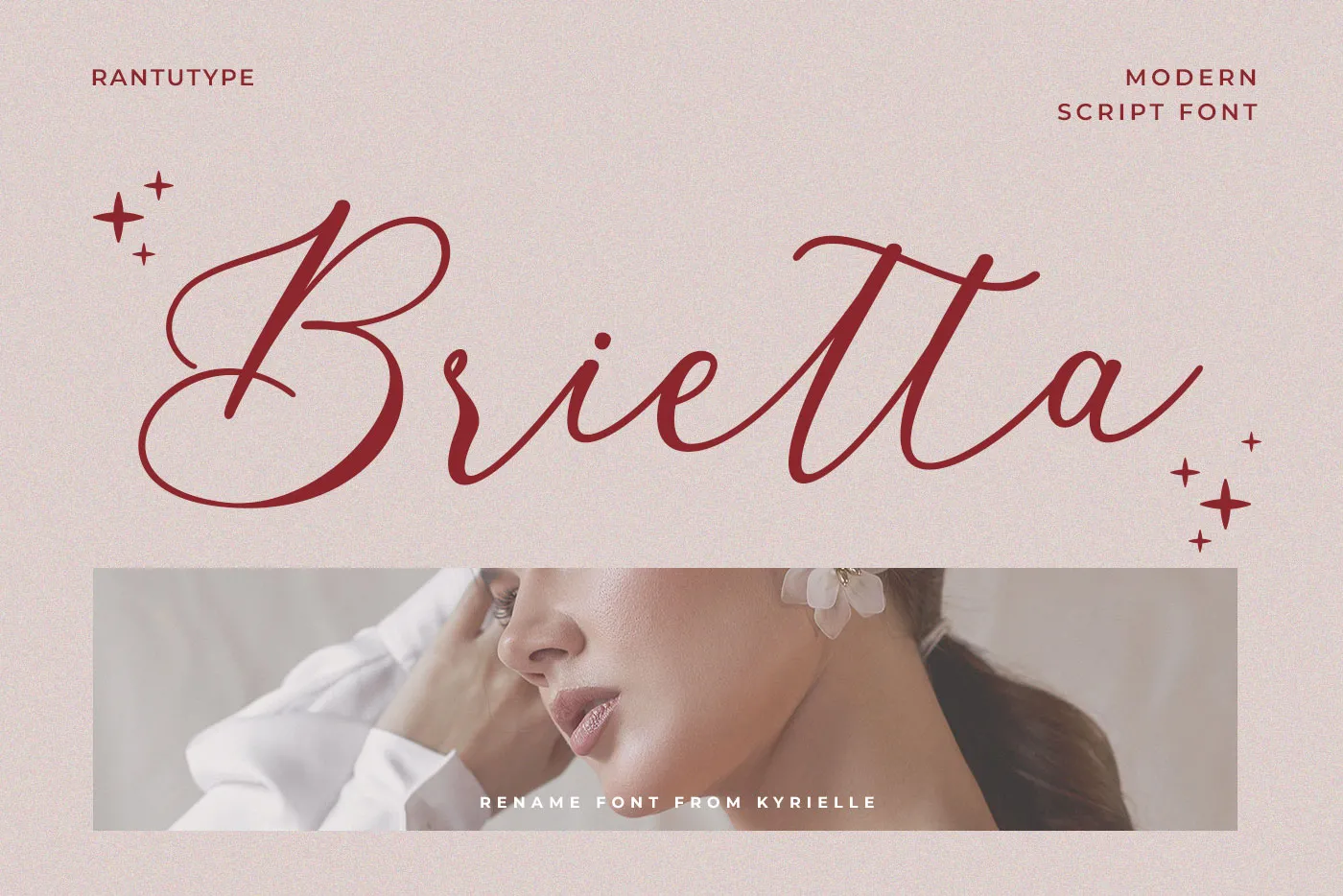
Think La Bohemienne has become a bit overused over the decades? Then, it’s the turn of a font similar to La Bohemienne to stand out. With sophisticated yet unpredictable characters, these fonts will perfectly complement your fancy project, like the La Bohemienne font does.
To make your search easier, we’ve got 32 alternatives to La Bohemienne without straying too far from the tried-and-true.
Key Takeaways:
- The alternative for the La Bohemienne font should represent the quirky and elegant calligraphic vibes.
- La Bohemienne font should mimic artistic penmanship.
- The font similar to La Bohemienne is best for high-end projects, including invitations, logos, and branding.
About La Bohemienne
Generally, La Bohemienne is an outstanding modern script font with calligraphic flourishes. The letters are interconnected with lovely lines, elegant swashes, and graceful curves to celebrate a sophisticated and artistic appearance.
It also has a consistent stroke width to facilitate readability while maintaining its visual appeal to fit a project. Thus, La Bohemienne is ideal for wedding invitations, brand logos, and creative projects.
32 Font Similar to La Bohemienne
Here’s the alternative to La Bohemienne you should know.
1. Millantey
Millantey is jam-packed with gorgeous swirls and lofty ascenders, making it ideal for feminine artwork.
2. Bristeny
Create a chic design by leveraging the Bristeny font to embody the classy vibe with loopy curves and delicate lines.
3. Eastrya
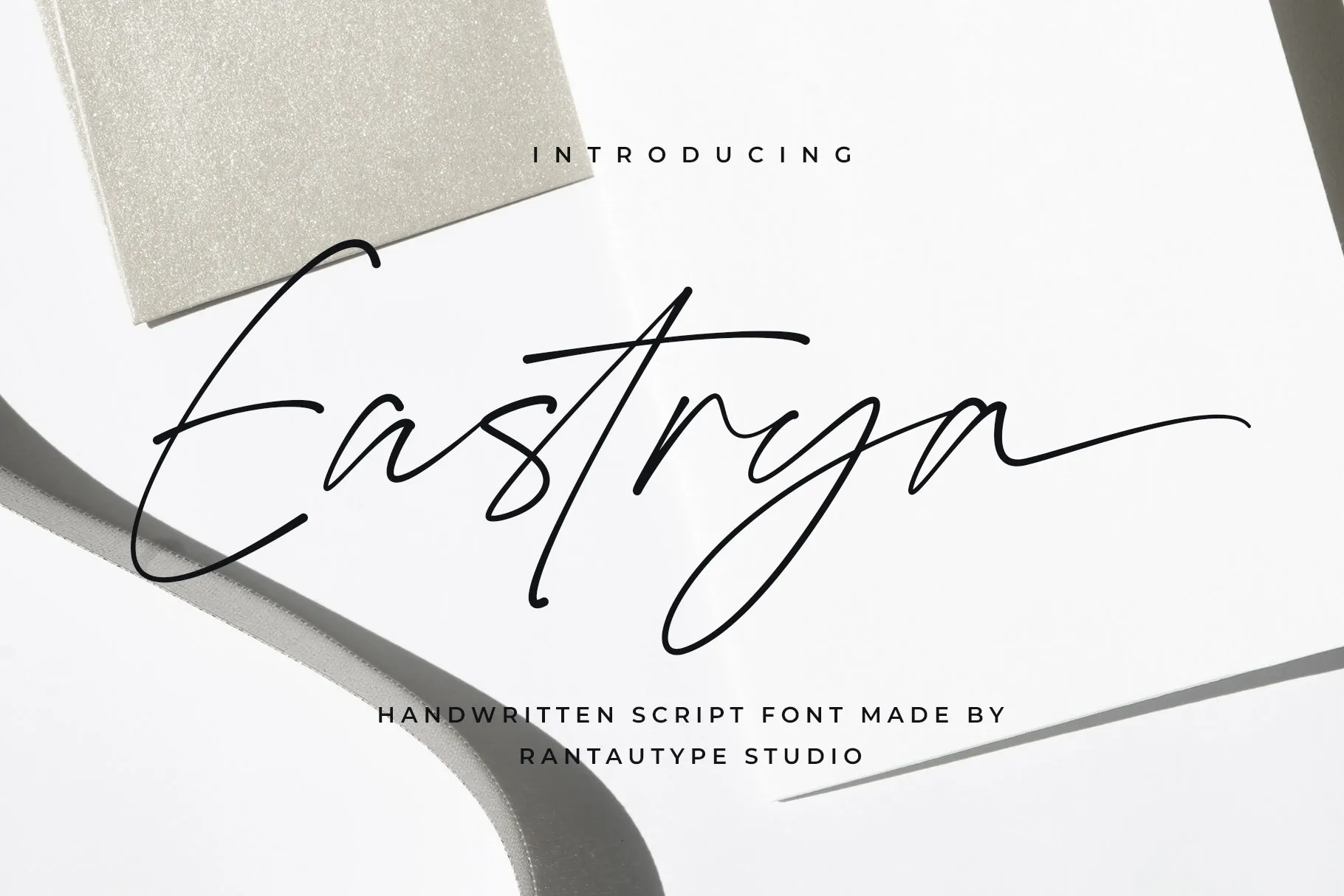
Flowy yet sophisticated, Eastrya features the perfect baseline to best fit your hand-drawn project.
4. Herattey
Herattey is a sleek typeface with thin to bouncy lines that are suitable for any title or wedding design.
5. San Brainy
A casual cursive font, San Brainy, boosts the contemporary touch with versatile usage in both print and digital projects.
6. Hastheya
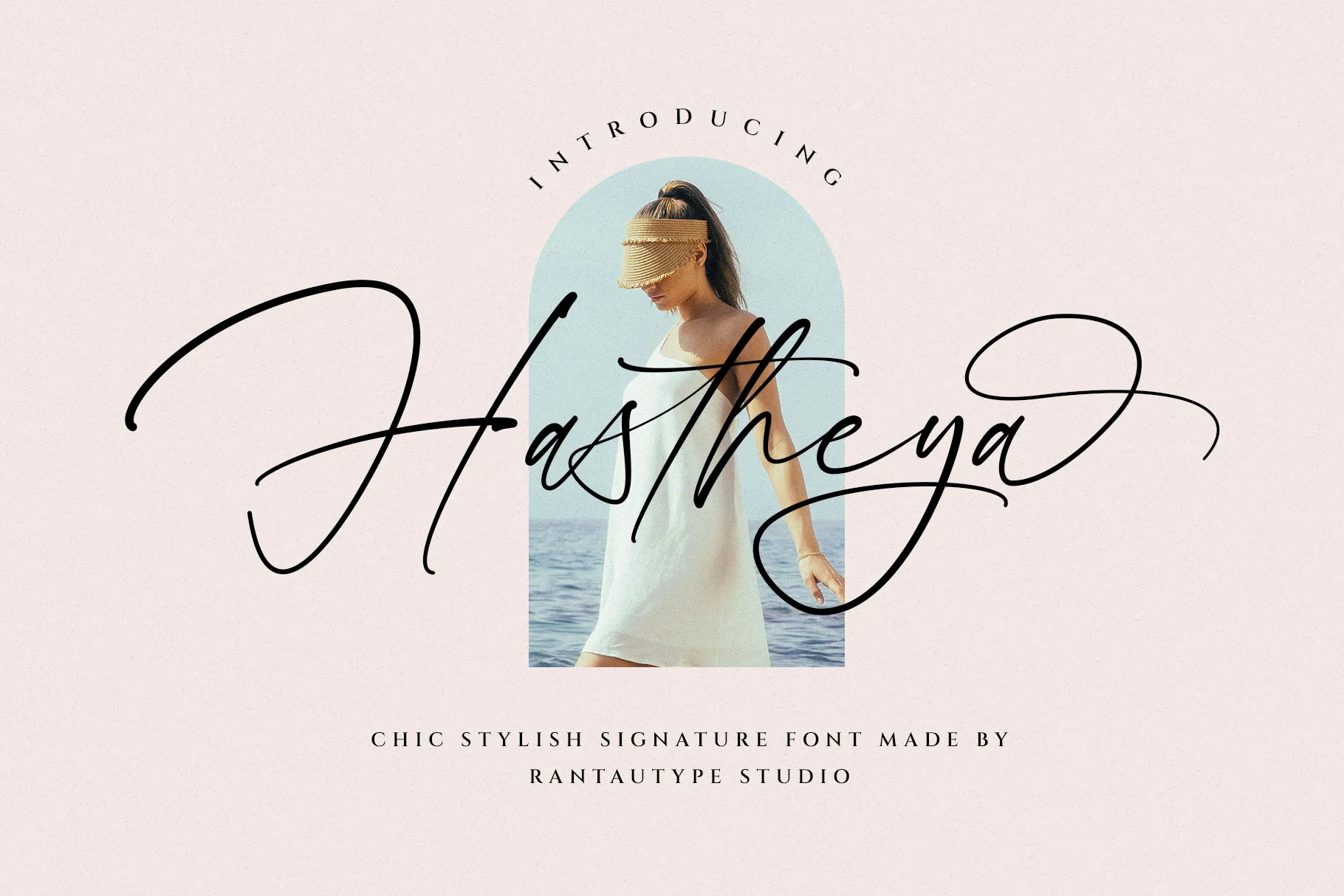
Hastheya has lovely swirls and twirls in its flow to capture the stylish script essence for contemporary design.
7. Bengoda
Bengoda is a scene-stealer! This font, similar to La Bohemienne, exudes a sophisticated vibe with its clean lines.
8. Morneta
Morneta stands out with its vintage charm by sticking out the smoothly linked letters and being crisp at a glance.
9. Batherga
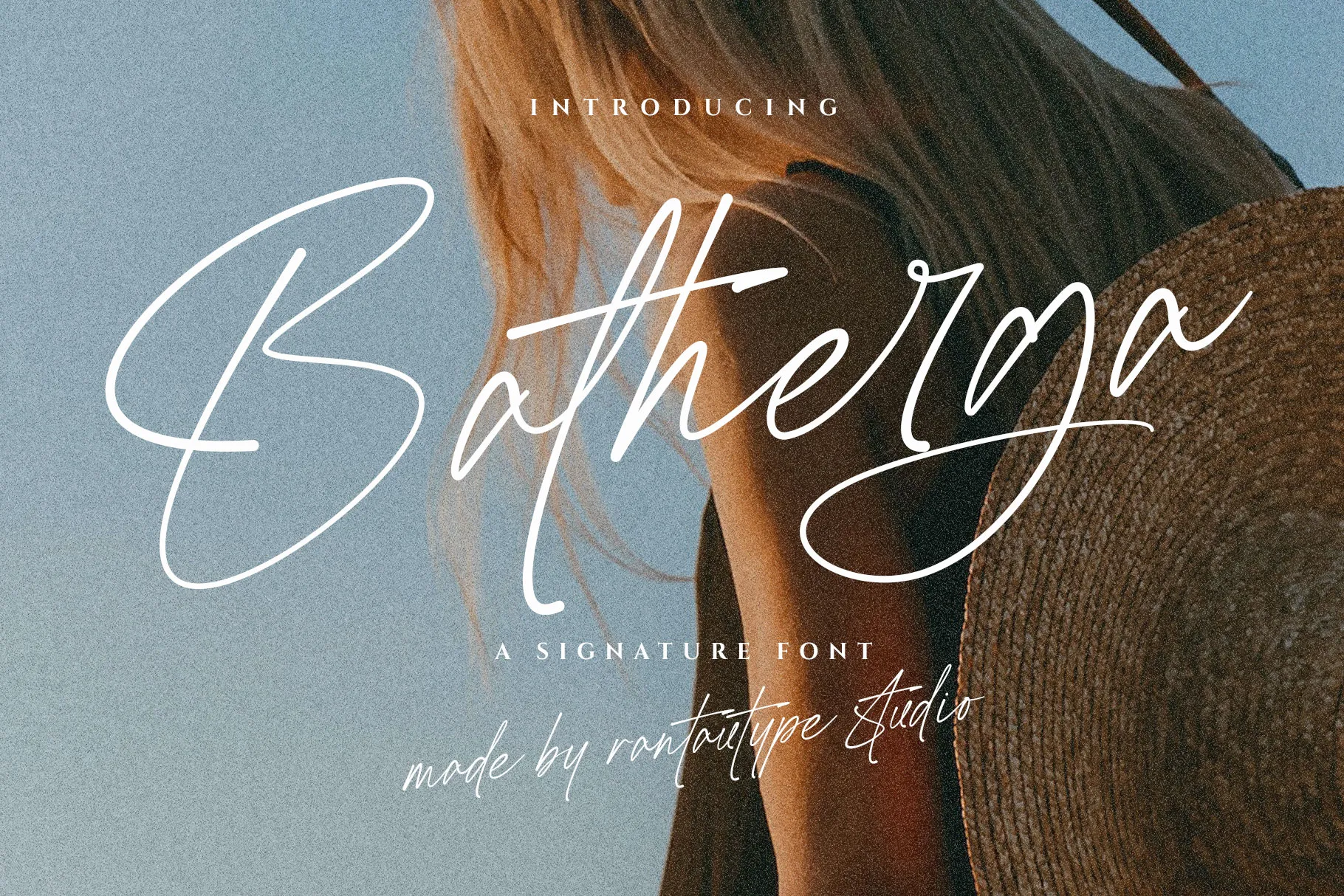
Fancy a luxury touch? Batherga’s dramatic stroke and subtle curves are perfectly matched to the design.
10. Amelta
Let’s introduce Amelta, the visually appealing font that shares a modern twist and remarkable grace.
11. Kathrina Rose
Unveiling Kathrina Rose, a modern monoline font that looks gorgeous with irregular strokes and an aesthetic touch.
12. Estancia
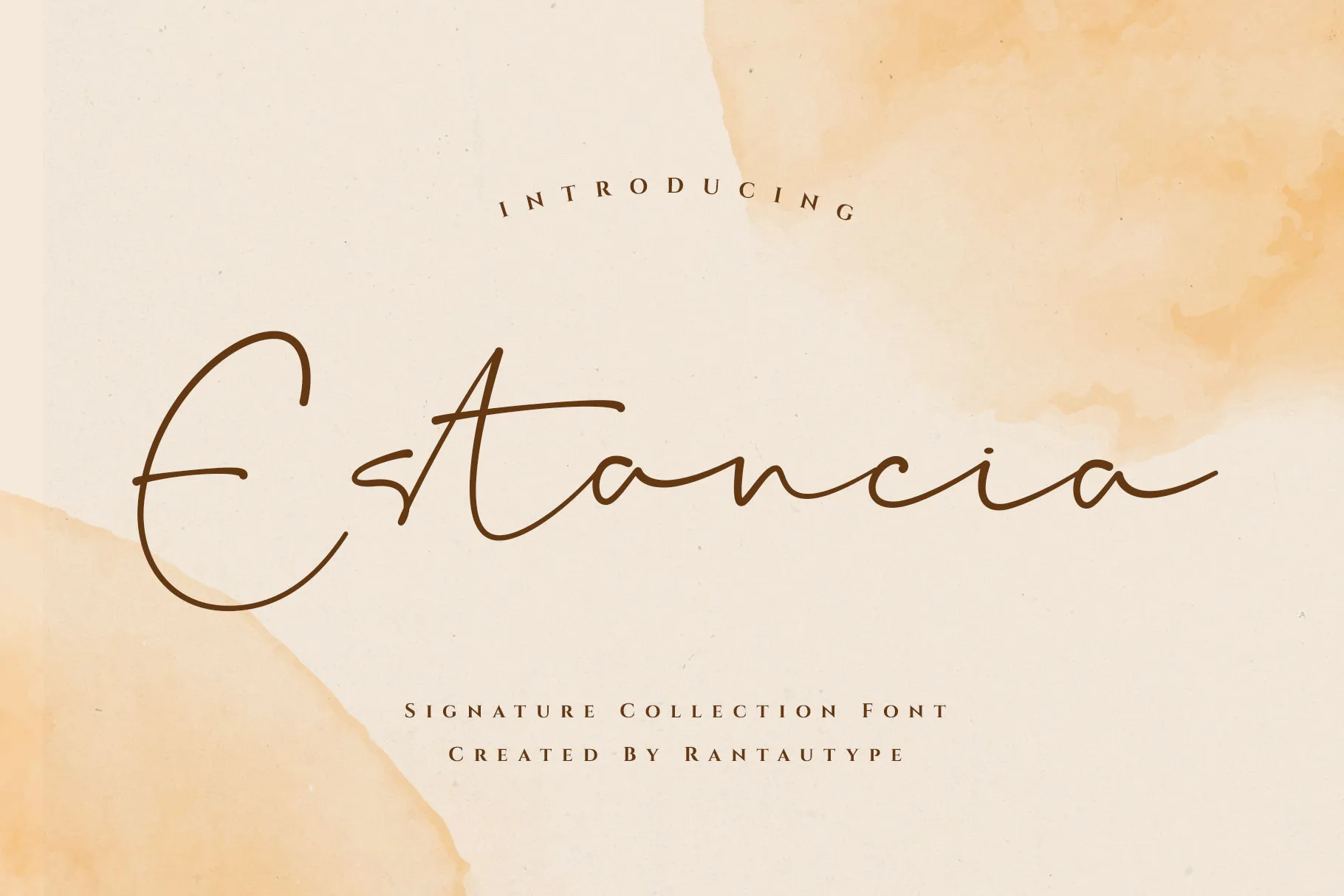
Estancia is the Bohemia font that embodies a charming and quirky style with a touch of whimsy.
13. Northrow
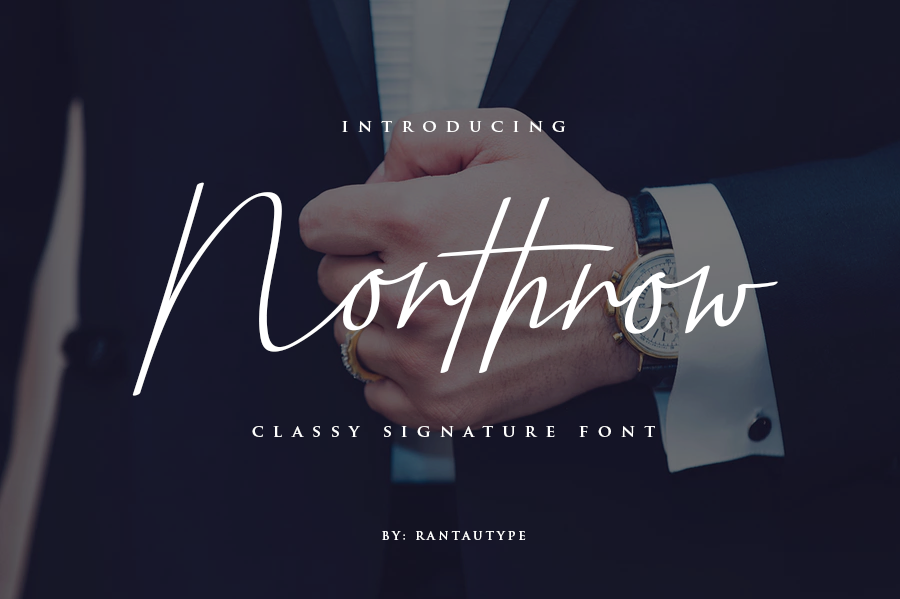
Northrow’s thick strokes and dynamic curves will give your design a strong visual impact.
14. Flavinda
To satisfy a minimalist project, give your design an authentic touch with Flavinda’s pretty swoops and elegant swirls.
15. Betterway
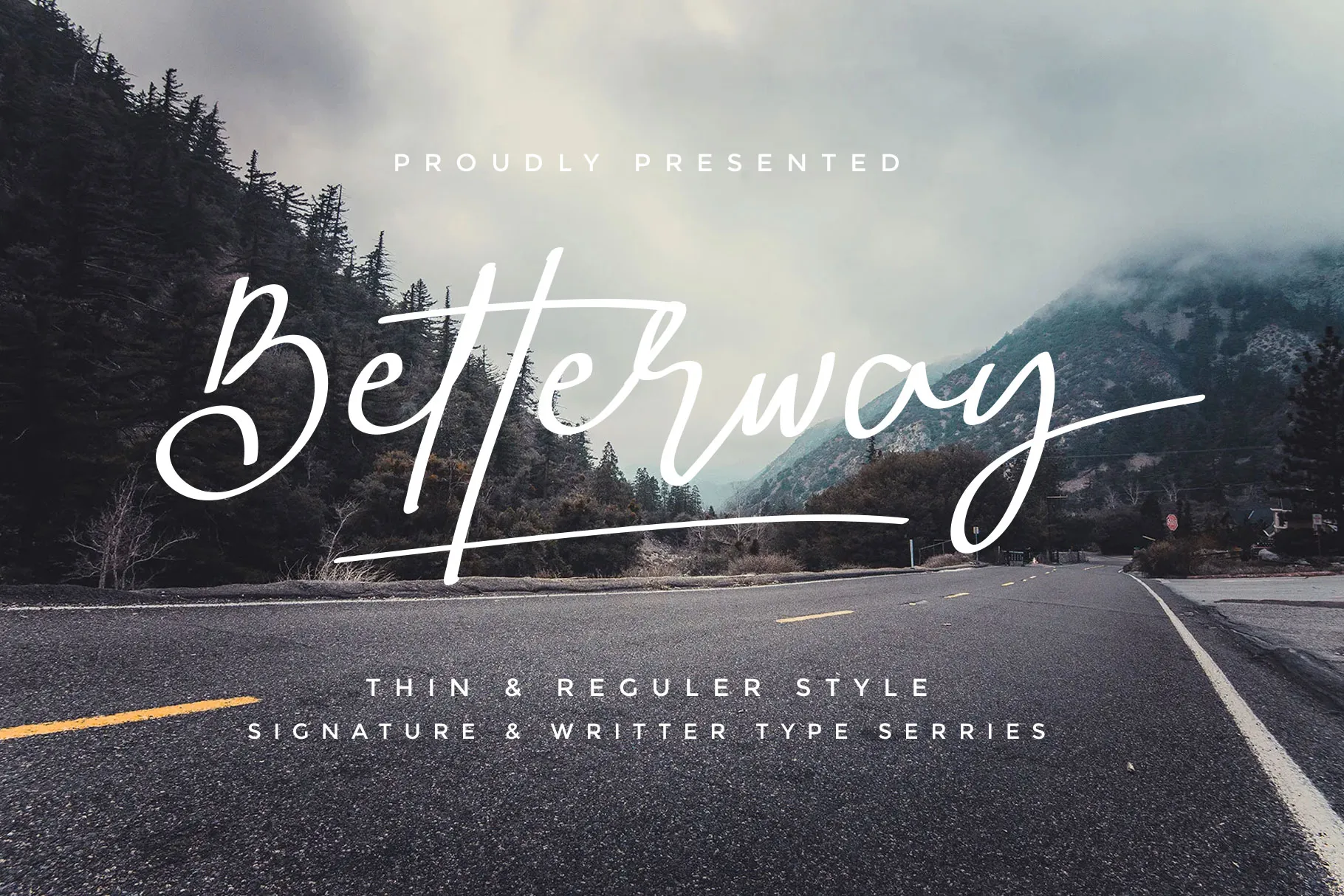
Another font similar to La Bohemienne, Betterway, is energetic with a stylistic tail and a superb upper and lower case mixing.
16. Melliora
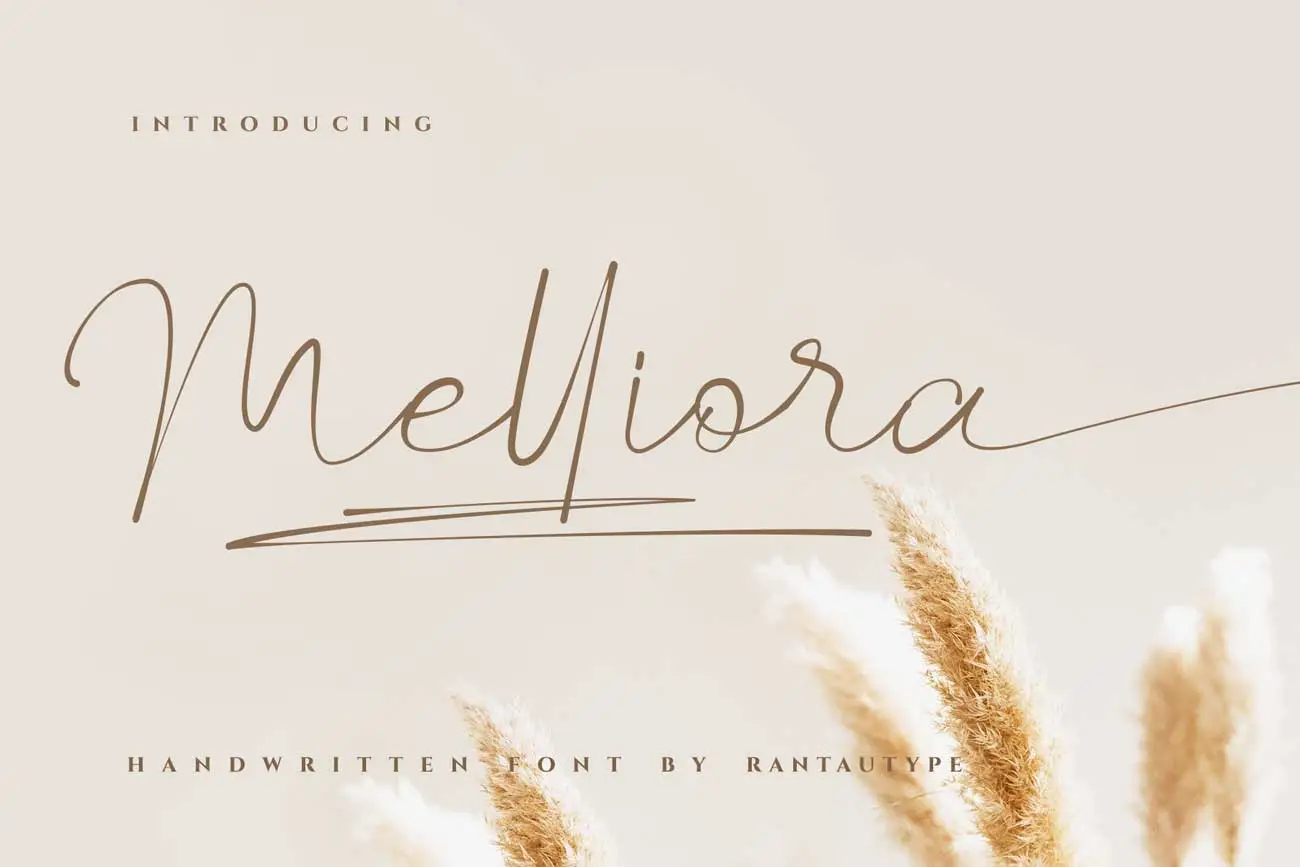
With slightly curved letters and soft edges, Meliora is great for personal matters, like signature logos.
17. Emilia Paris
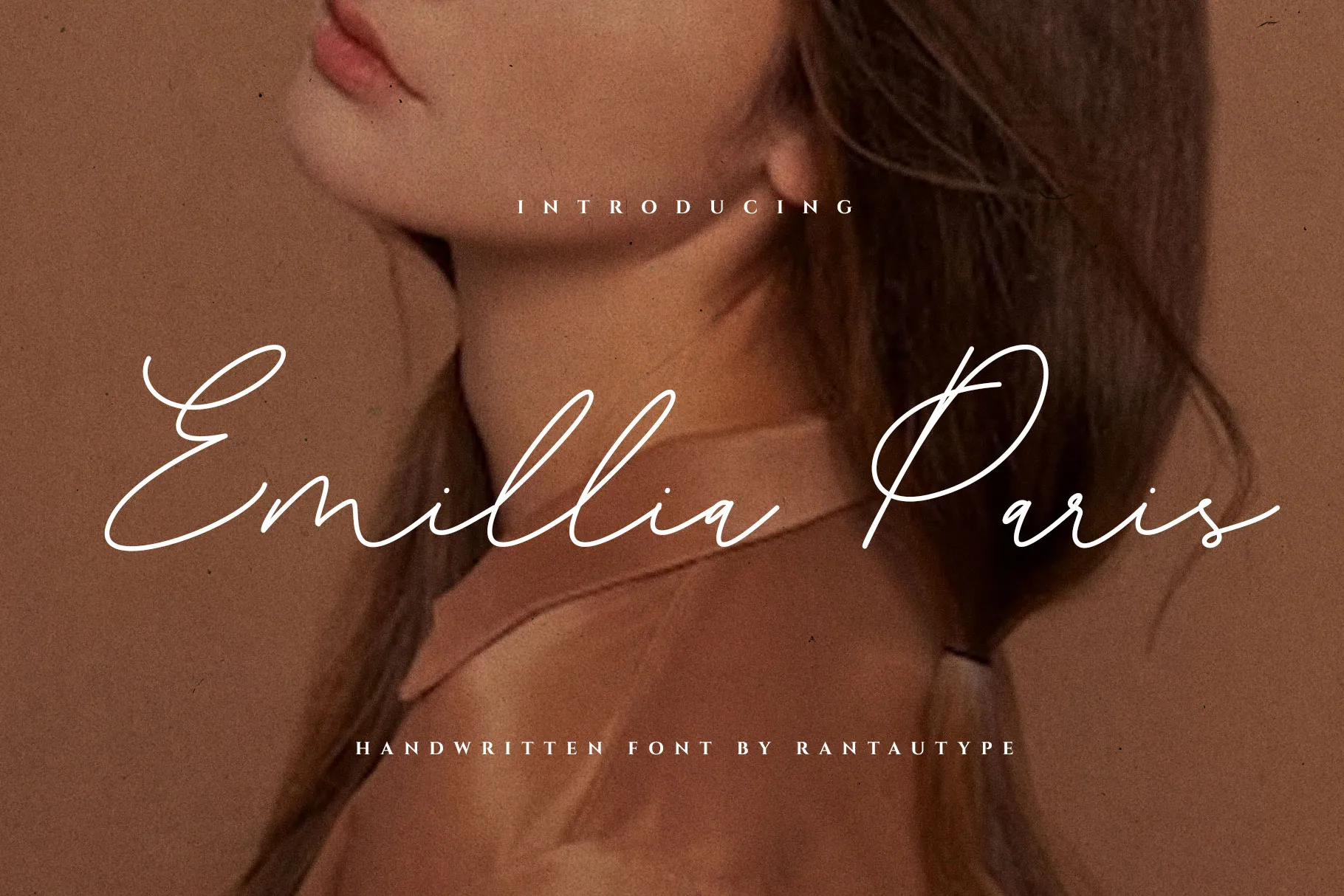
Emilia Paris combines dynamic strokes and smooth ligatures to elevate high-end design projects with a unique flair.
18. Ganttecy
Due to its simplicity, Ganttecy presents youthful elegance by featuring subtle ligatures that give it an easygoing feel.
19. Warsini
Warsini is a font similar to La Bohemienne; it features eccentric letters and long-curl ligatures that evoke historical charm.
20. Saint Hilton
Feast your eyes on the skinny Saint Hilton font; it has a high readability due to its long lines. It gives off a more professional look of La Bohemienne.
21. Festigan
Festigan features a stylish yet professional alternate and swashes to succeed in your formal project.
22. Amelia Faith
Amelia Faith is a script lettering font with soft curves on letter corners, making them pleasing and versatile.
23. Clafita Miller
The next font similar to La Bohemienne is Clafita Miller. It’s quite relaxed with a simple-style approach to all types of design.
24. Sergia
Sergia is a natural handwritten typeface that brings a casual and authentic vibe due to its rounded and trendy alternate.
25. The Rightness
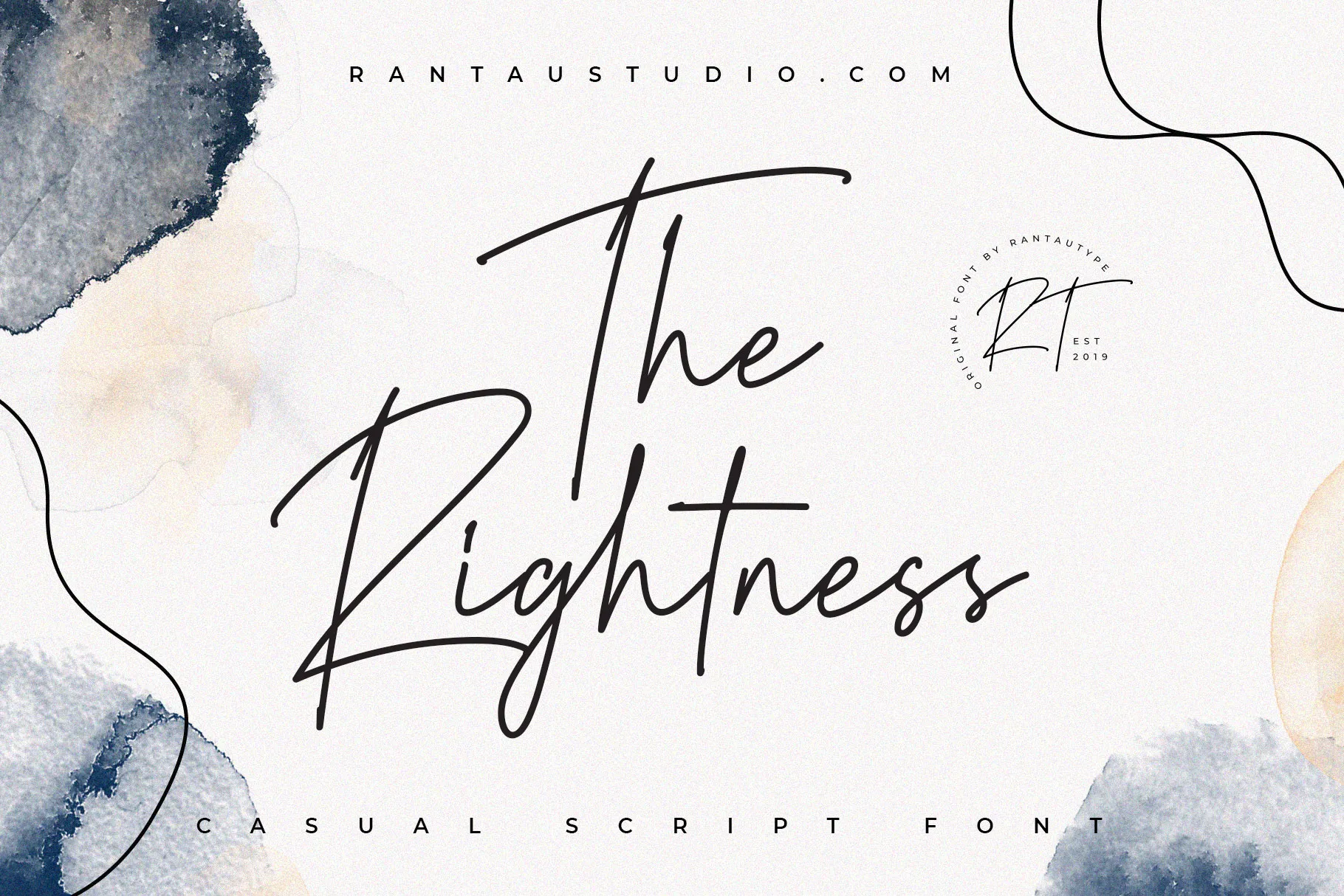
Try the crisp accents and soft-flowing lettering of the Rightness typeface to portray objects beautifully in an artistic project.
Elevate Your Design With a Font Similar to La Bohemienne!
Looking for fonts within the same style as La Bohemienne is essential to maintain a similar aesthetic. With the best font similar to La Bohemienne above, you can craft a timeless and visually appealing design while adding a unique, distinctive impression.